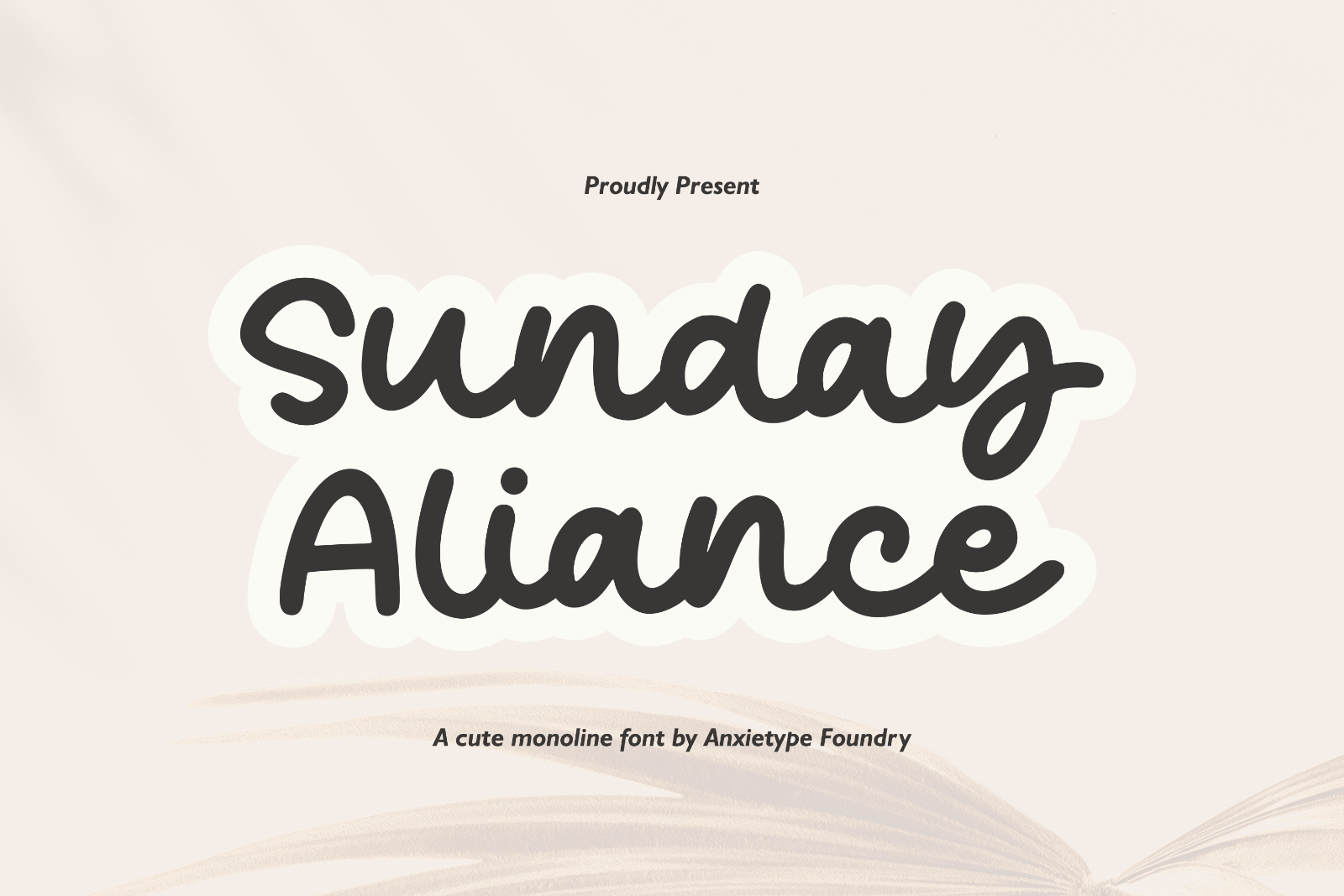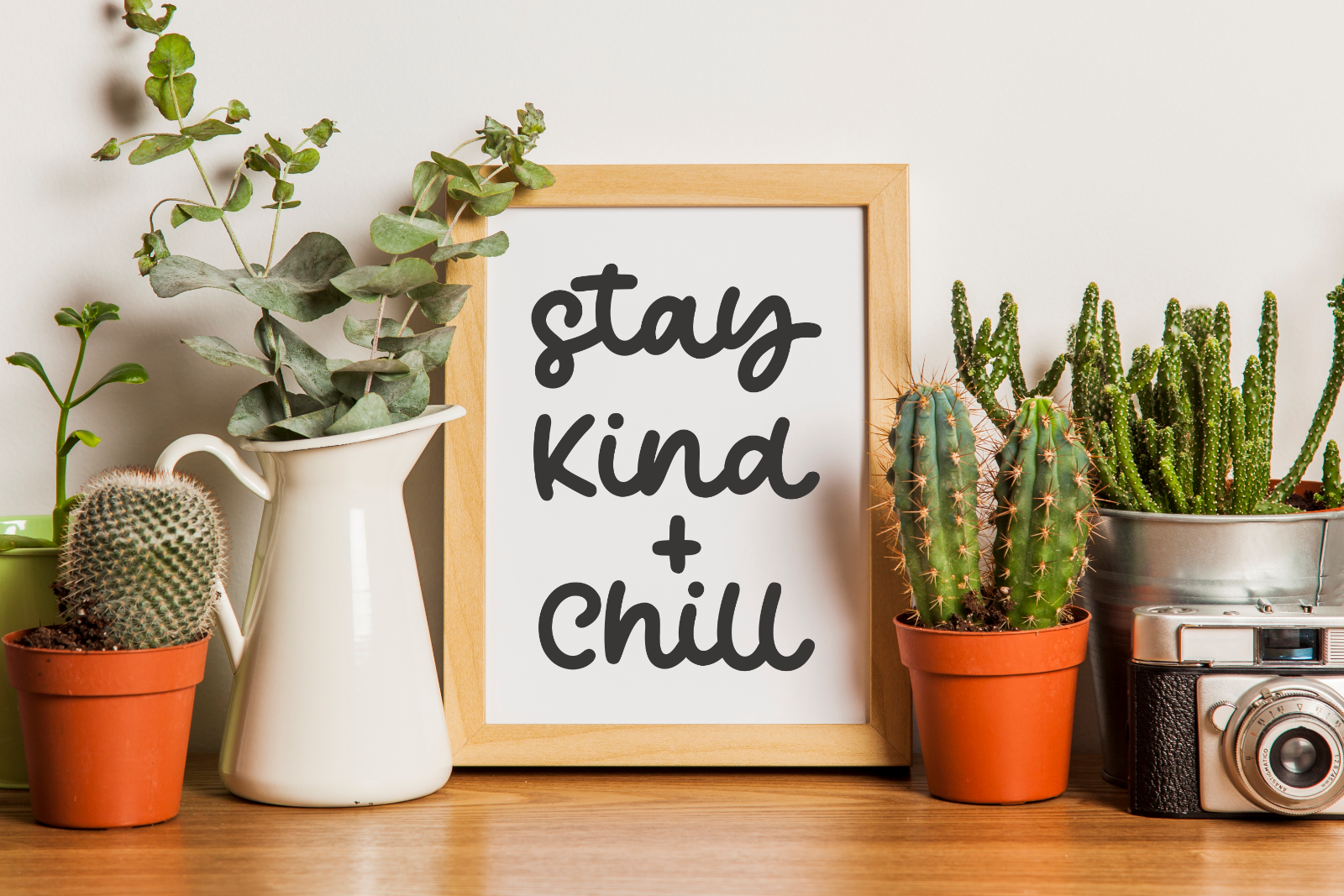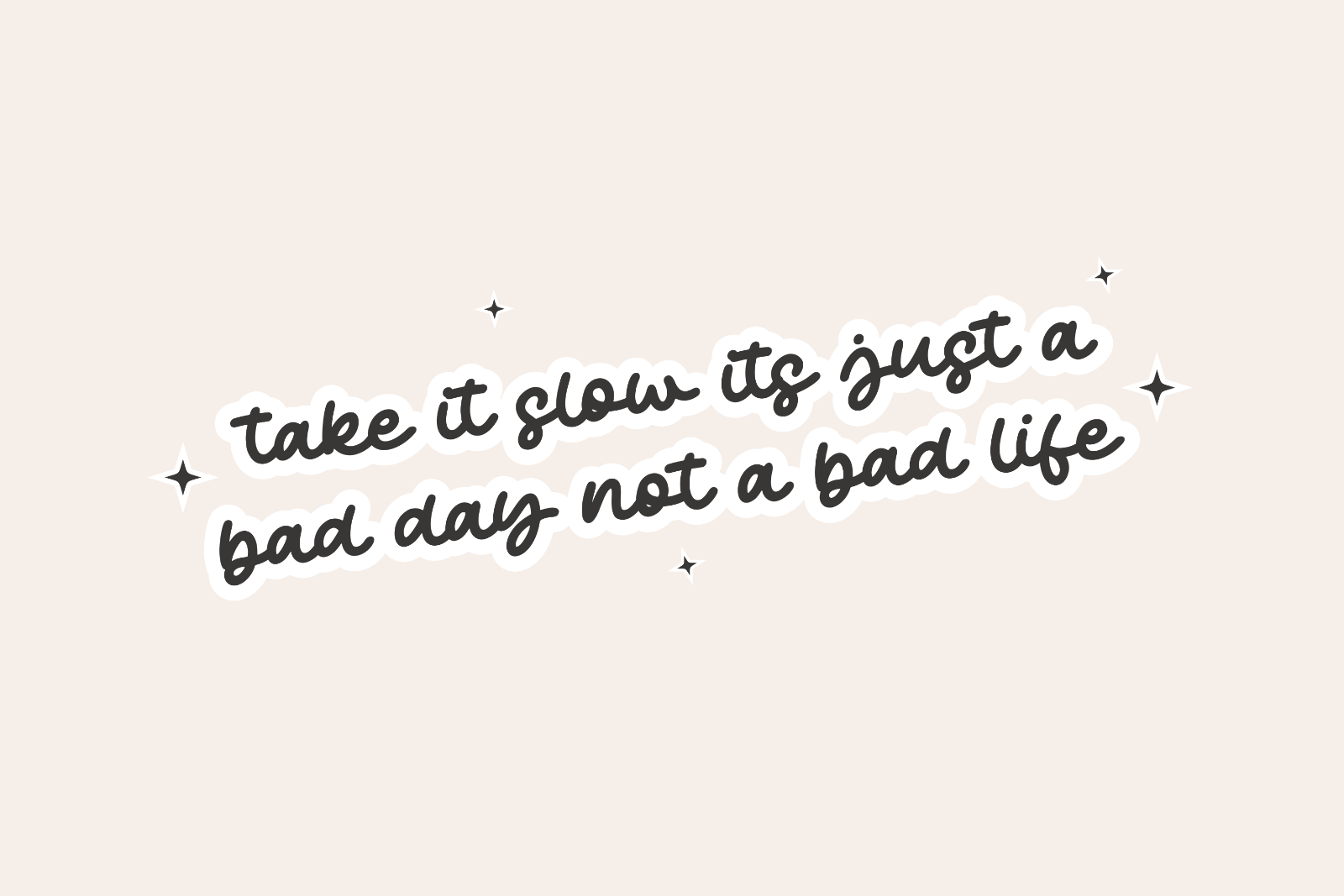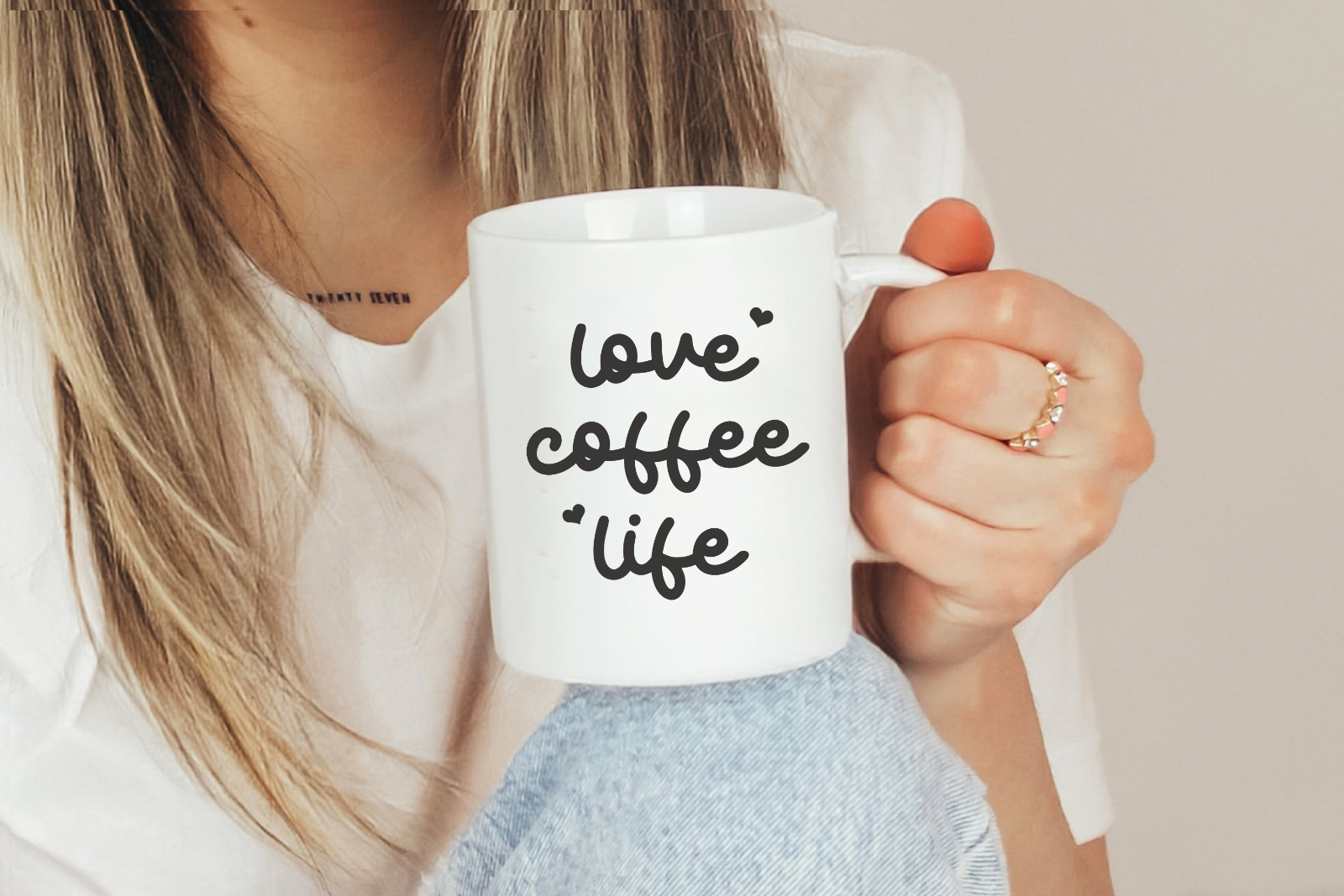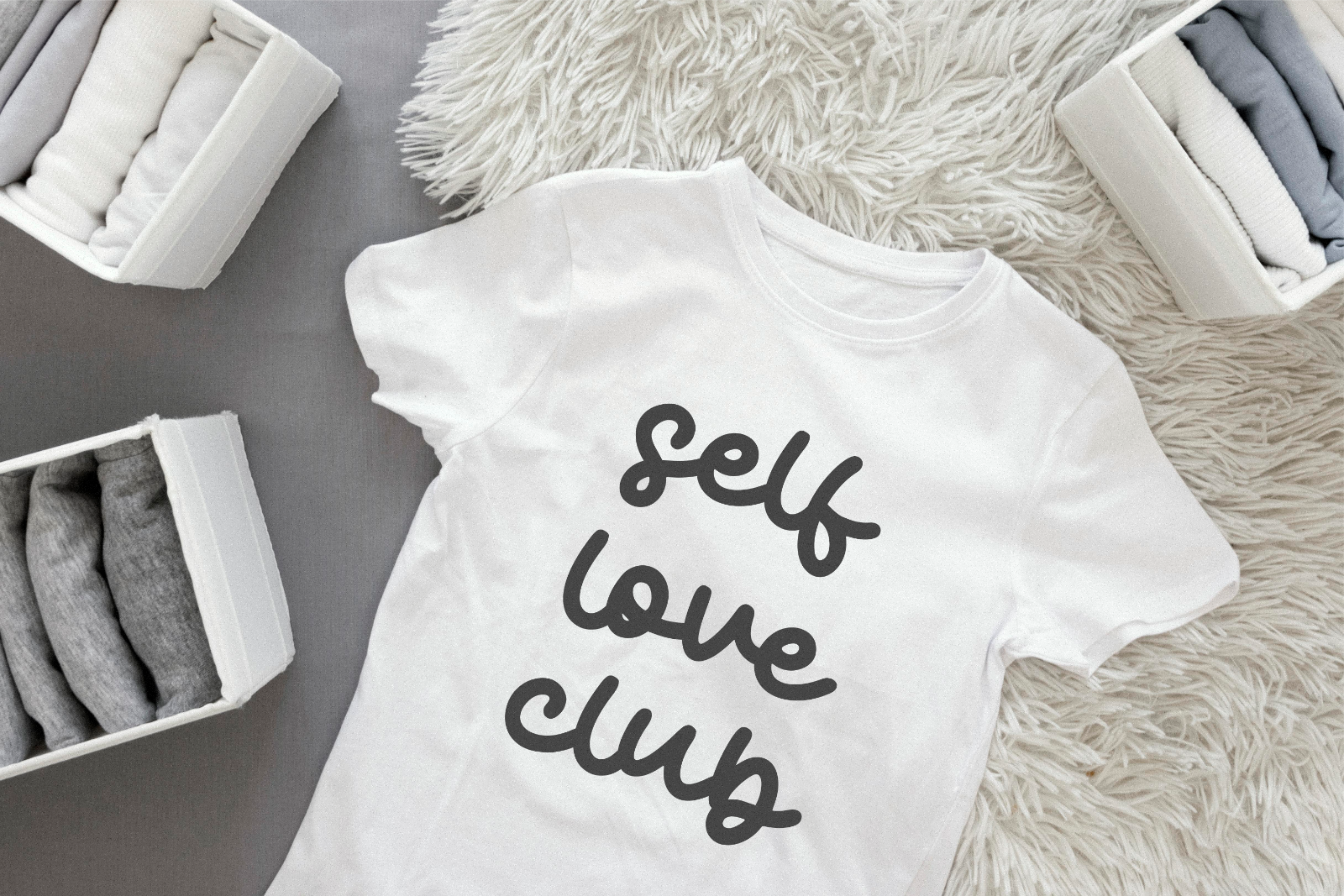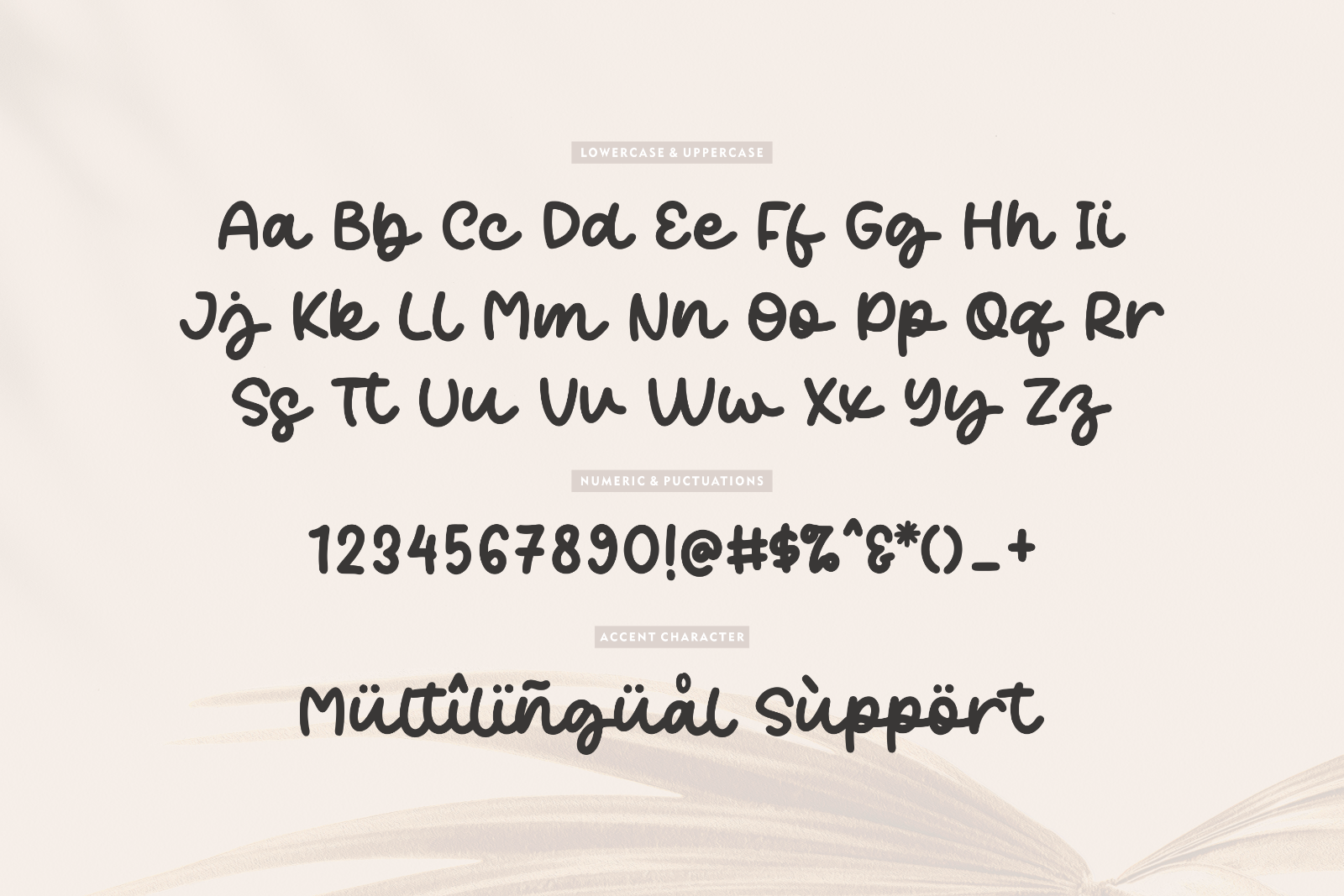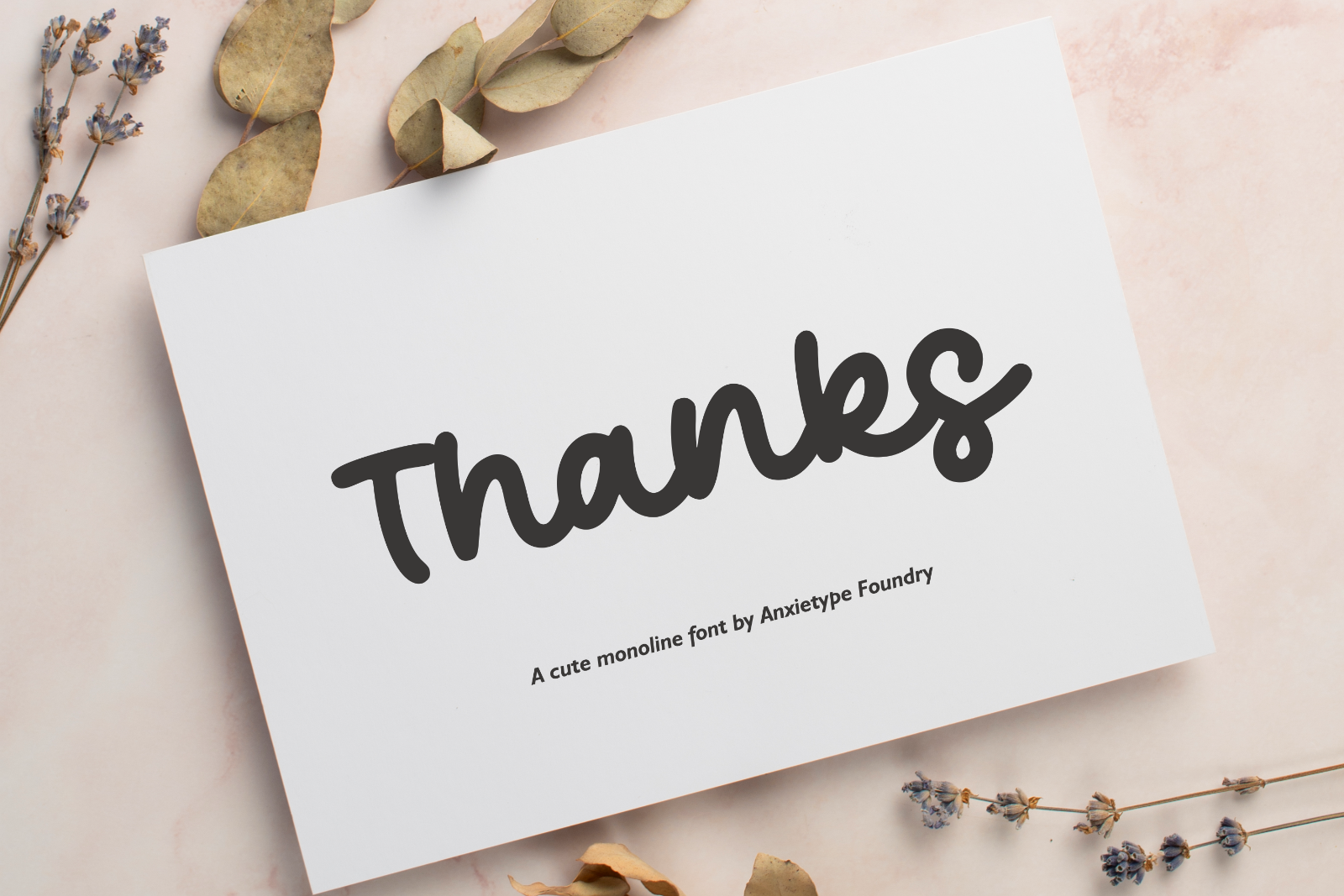
Introducing Sunday Aliance Monoline font, expertly crafted by the creative minds at Anxietype Foundry. This versatile and unique typography shines in many facets - from enhancing product packaging with a distinct touch, to creating a striking presence in branding projects. Breath new life into magazine layouts or give your social media posts an engaging allure with Sunday Aliance Monoline font. It's also a dream come true for any wedding themes, allowing for a brilliantly romantic touch. But don't be deceived by its multifunctionality; this font still thrives when employed simply to articulate words atop a background. With Sunday Aliance, the opportunity to leave a potent, lasting impression becomes effortlessly possible.